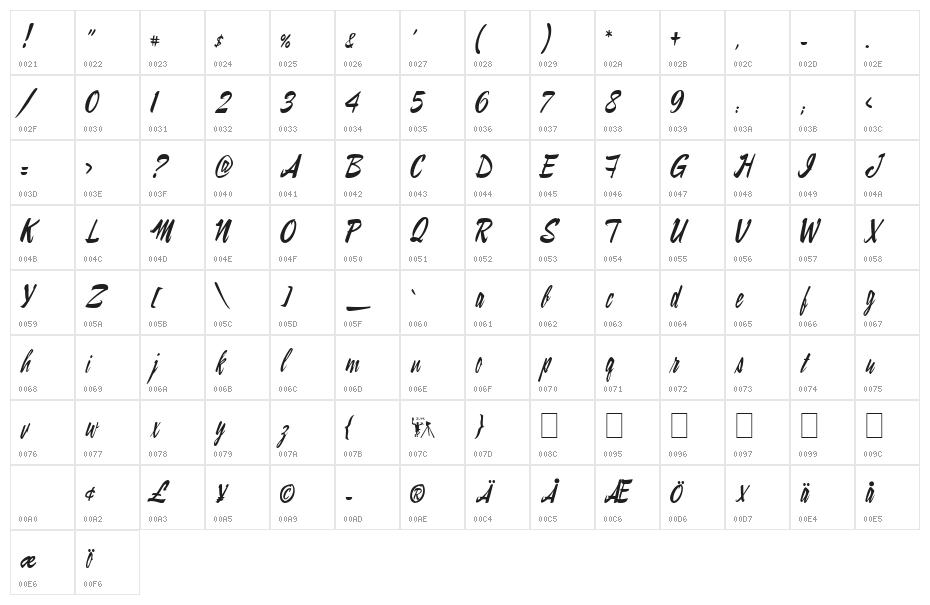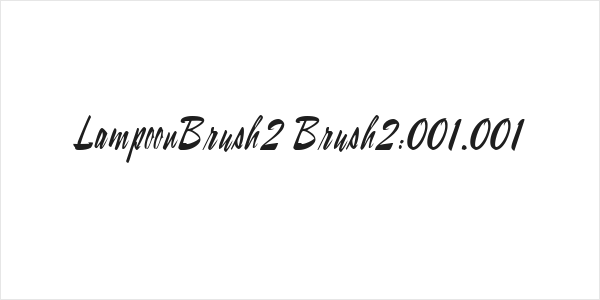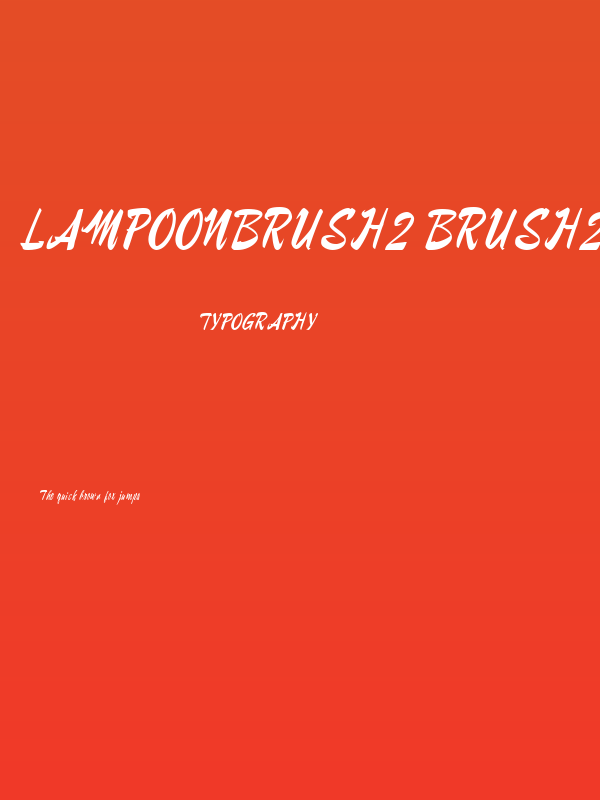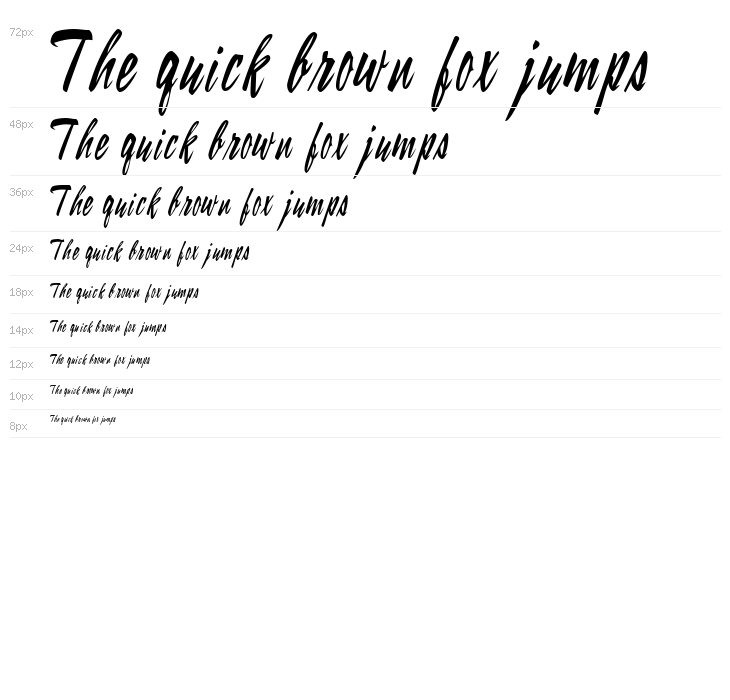
LampoonBrush2 Brush2:001.001 Font
LampoonBrush2 Brush2:001.001 Description
This font features a bold and dynamic brush style, characterized by its fluid and expressive strokes. The uppercase letters exhibit a strong presence with slightly exaggerated curves and angles, giving them a sense of movement and energy. The lowercase letters maintain the same lively quality, with a slightly more compact form that complements the uppercase set. Numbers and special characters are crafted with the same attention to detail, ensuring consistency across all glyphs. The overall appearance is both artistic and legible, making it suitable for creative and impactful designs.
| Proposed Projects | Ideal for branding, posters, and creative projects that require a bold and artistic touch. |